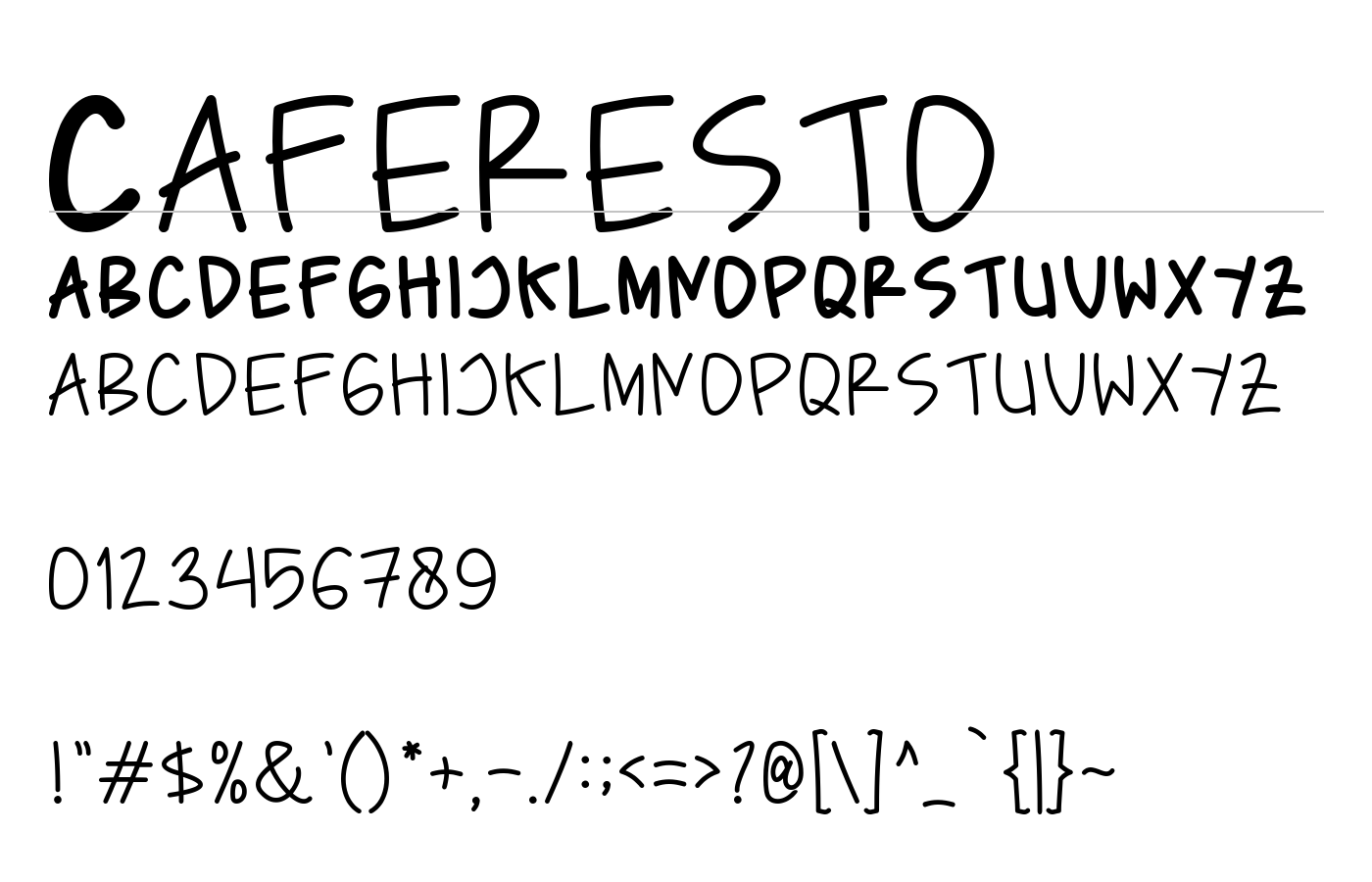
Caferesto is a casual handwritten sans serif font featuring a playful, relaxed style with slightly uneven strokes that give it a natural, personal touch. Its light to regular weight and airy letter spacing make it ideal for informal, friendly designs such as greeting cards, children's books, or creative branding. This font’s approachable and charming character works well in projects seeking a warm, inviting feel.
Caferesto Font
About Caferesto Font